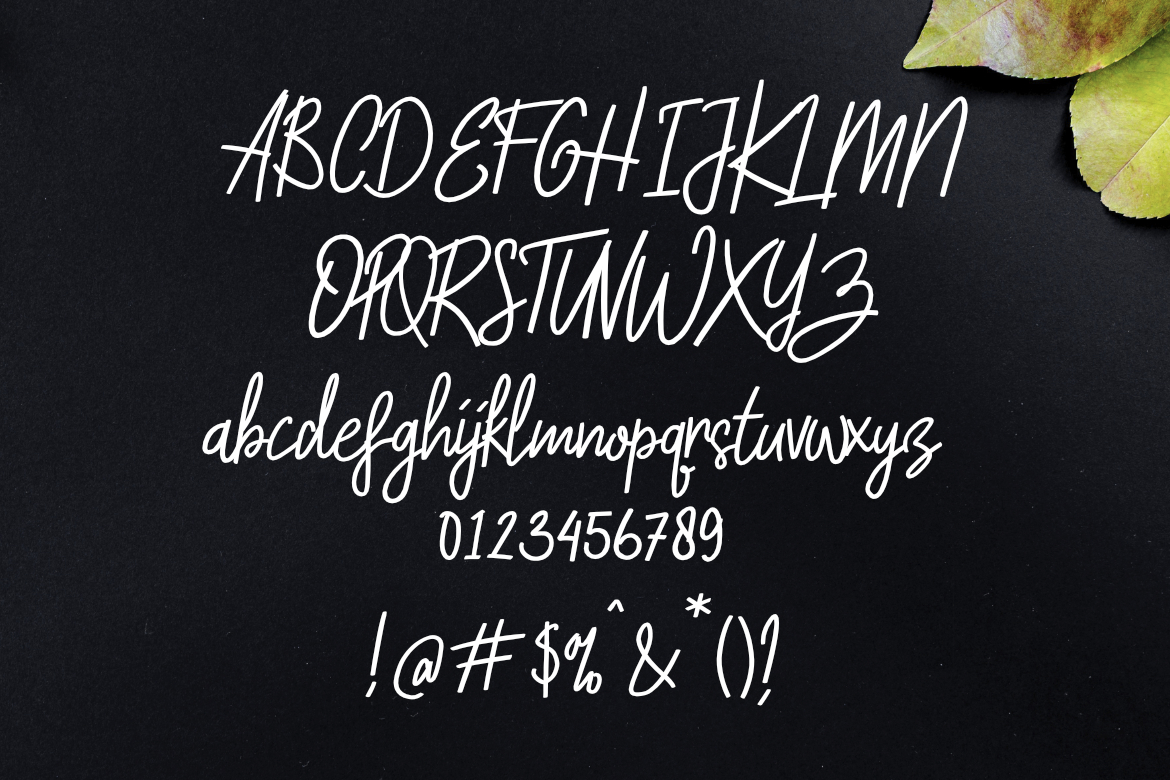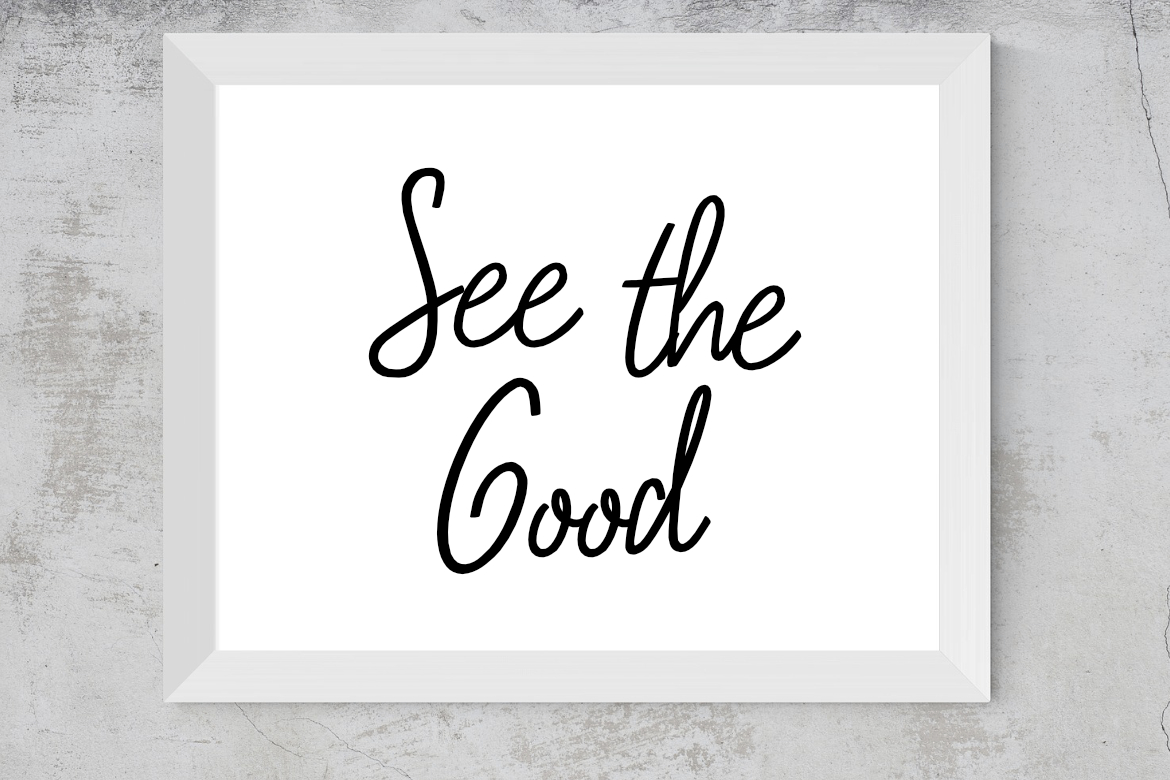
The Amigos Font: A Friendly and Modern Script for Every Design Need
I’ll never forget the time I was working on a project for a client who needed a font that was both modern and approachable. I had spent hours scouring the internet for the perfect script font, but nothing seemed quite right. That was until I stumbled upon Amigos Font. This beautiful, friendly script has been a game-changer for my designs, and I’m excited to share it with you.
I’ve had the pleasure of working with Amigos Font for a while now, and here’s what I think:
- ✨ Simple and Natural: Amigos Font has a wonderfully organic feel to it. It’s not too floral or delicate, making it perfect for a wide range of designs.
- ✅ Adaptable: Whether you’re working on a logo, a brochure, or a social media post, Amigos Font fits right in.
- ✅ Easy to Read: The font is clear and legible, even at smaller sizes.
- 🤔 Limited Ligatures: While Amigos Font has some beautiful ligatures, it’s not as extensive as some other script fonts.
- ⚠️ Not Ideal for Body Text: While it’s easy to read, Amigos Font is best used for headlines or short paragraphs. It may not be the best choice for longer blocks of text.
One of the best things about Amigos Font is how versatile it is. Here are some tips for using it on different platforms:
- Experiment with OpenType features like ligatures and stylistic alternates to add some personality to your text.
The Story Behind Amigos Font
While the true origins of Amigos Font are unknown, it’s easy to imagine that it was created with the intention of making beautiful design more accessible. Perhaps the designer was tired of seeing the same old fonts used over and wanted to create something fresh and modern. Whatever the inspiration, Amigos Font has certainly made its mark on the design world.
| Author | LebahStudio |
| Is Amigos Font suitable for body text? | No, Amigos Font is best used for headlines or short paragraphs. It may not be the best choice for longer blocks of text. |